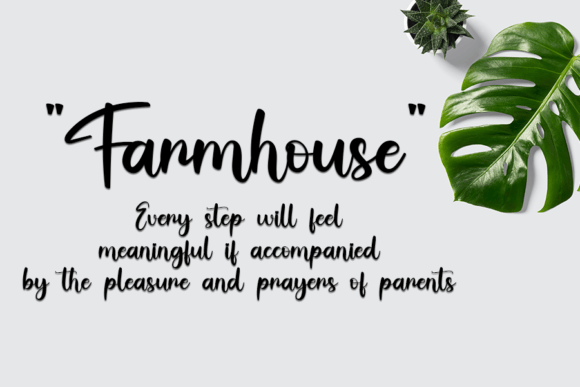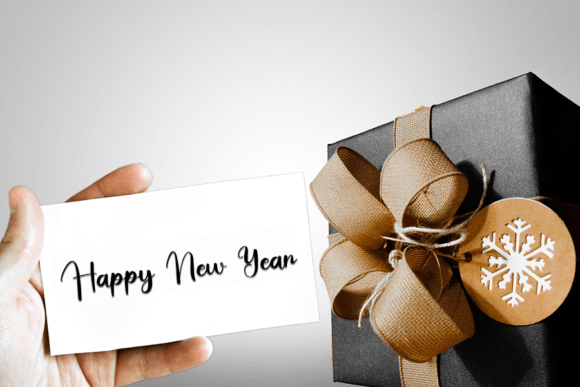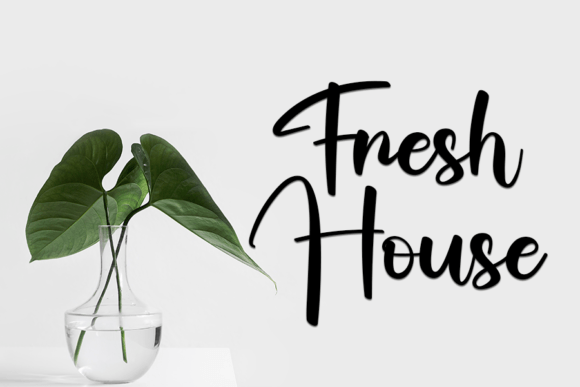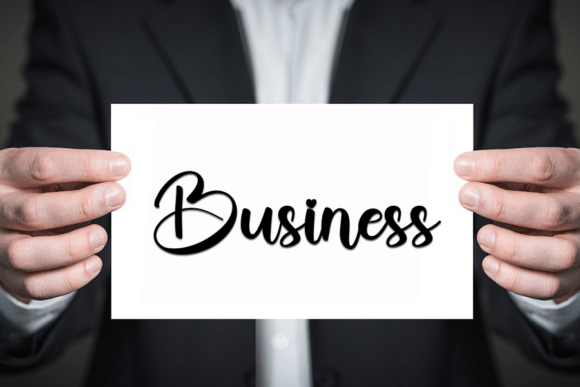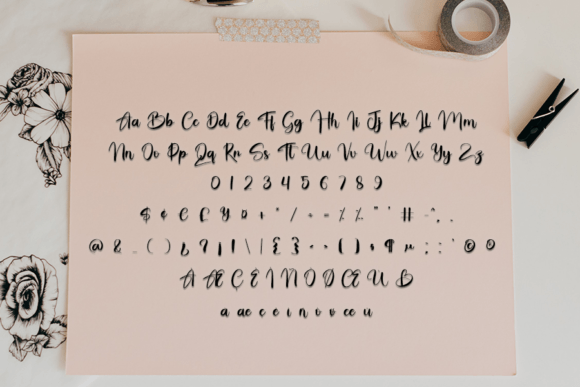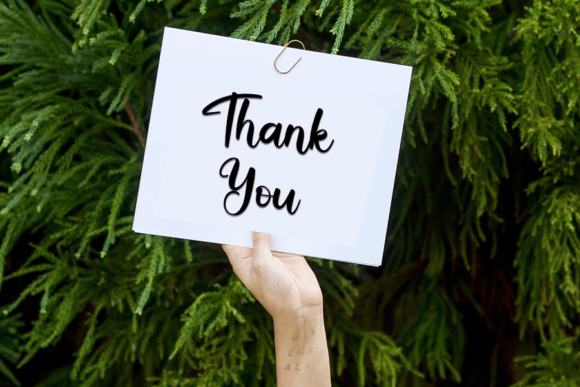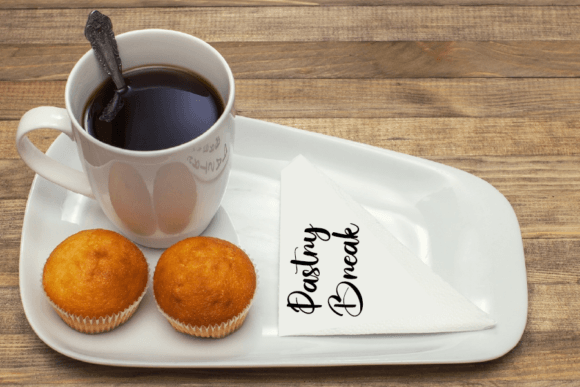
Hunting Font
About Hunting Font
Hunting is a delicate handwritten font carefully crafted for a cool and unique design. This font can be used to write letters, invitations, food products, titles and more.